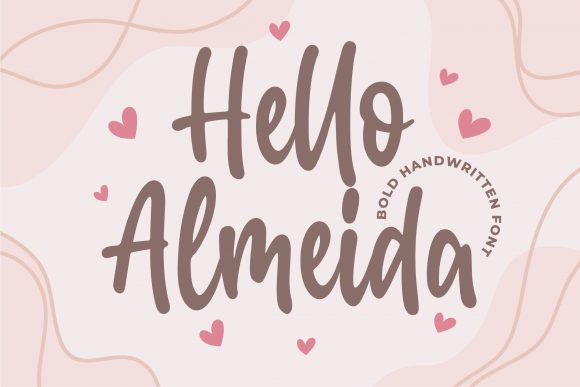
Hello Almeida Font: A Relaxed and Dainty Paint Brushed Handwritten Font
In the world of typography, fonts play a crucial role in conveying the tone and personality of a brand or design. With the vast array of fonts available, it can be challenging to find the perfect one that suits your needs. However, if you’re looking for a font that exudes relaxation and elegance, look no further than the Hello Almeida font. This article will delve into the features and benefits of the Hello Almeida font, and explore how it can elevate your designs to the next level.
Hello Almeida Font: A Relaxed and Dainty Paint Brushed Handwritten Font
Hello Almeida is a beautiful, relaxed, and dainty paint brushed handwritten font. Its unique charm lies in its effortless and casual appearance, making it perfect for a wide range of design projects. The font’s relaxed nature allows it to adapt seamlessly to various topics and themes, ensuring that your designs always look stylish and sophisticated.
One of the standout features of the Hello Almeida font is its paint brushed effect. The subtle texture and imperfections of the brush strokes give the font a sense of authenticity and human touch, setting it apart from more traditional and uniform fonts. This distinctive characteristic makes it an excellent choice for designers looking to add a personal and creative flair to their work.
An Incredibly Asset to Your Fonts’ Library
No matter the topic or theme, the Hello Almeida font is an incredibly valuable asset to your fonts’ library. Its versatility and adaptability make it suitable for a wide range of design projects, from elegant wedding invitations and sophisticated branding materials to playful greeting cards and whimsical children’s books.
The font’s ability to elevate any creation is largely due to its unique balance of relaxation and refinement. It can add a touch of elegance to minimalist designs, while also bringing a sense of playfulness to more vibrant and bold projects. This flexibility makes the Hello Almeida font an excellent addition to any designer’s toolkit.
Exploring Design Applications for Hello Almeida Font
The Hello Almeida font can be used in a variety of design applications, including:
- Branding and Logo Design: The font’s unique charm and relaxed nature make it perfect for creating distinctive and memorable brand identities.
- Wedding and Event Stationery: The elegant and sophisticated appearance of the font makes it ideal for wedding invitations, save-the-date cards, and other event stationery.
- Packaging Design: The font’s playful and whimsical nature makes it suitable for packaging design, particularly for products that require a more personal and creative approach.
- Digital and Print Media: The Hello Almeida font can be used in a range of digital and print media, including magazines, blogs, and social media graphics.
Typography Tips for Using Hello Almeida Font
To get the most out of the Hello Almeida font, consider the following typography tips:
- Pair with contrasting fonts: Combine the Hello Almeida font with a more traditional or bold font to create visual interest and contrast.
- Experiment with colors: The font’s paint brushed effect looks stunning in a range of colors, from soft pastels to rich jewel tones.
- Pay attention to spacing: Ensure that the font has sufficient spacing to maintain its relaxed and effortless appearance.
Font Pairing Suggestions for Hello Almeida Font
To create harmonious and visually appealing designs, consider pairing the Hello Almeida font with the following fonts:
- Open Sans: A clean and modern sans-serif font that provides a nice contrast to the Hello Almeida font’s relaxed nature.
- Lato: A elegant and refined sans-serif font that complements the Hello Almeida font’s elegant appearance.
- Merriweather: A classic and sophisticated serif font that pairs well with the Hello Almeida font’s whimsical nature.
In conclusion, the Hello Almeida font is a versatile and valuable asset to any designer’s fonts’ library. Its unique blend of relaxation and refinement makes it suitable for a wide range of design projects, from elegant branding materials to playful greeting cards. By incorporating the Hello Almeida font into your designs, you can add a touch of elegance and whimsy, elevating your creations to the next level.